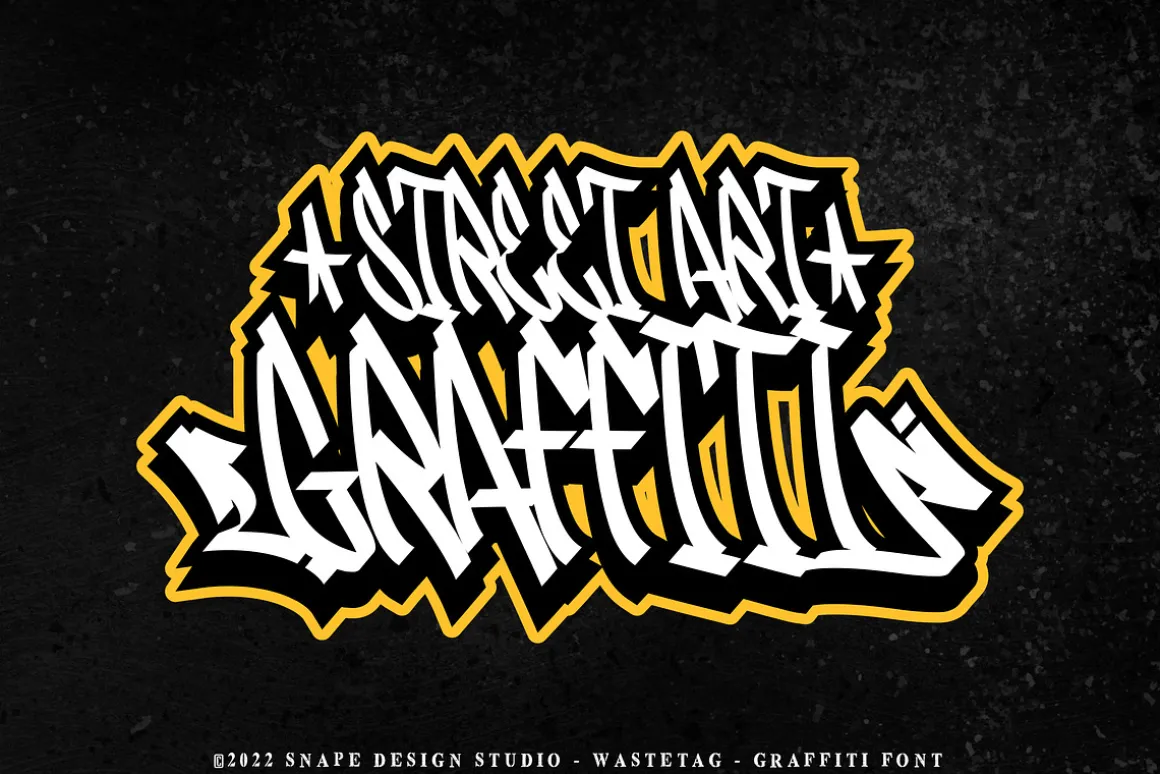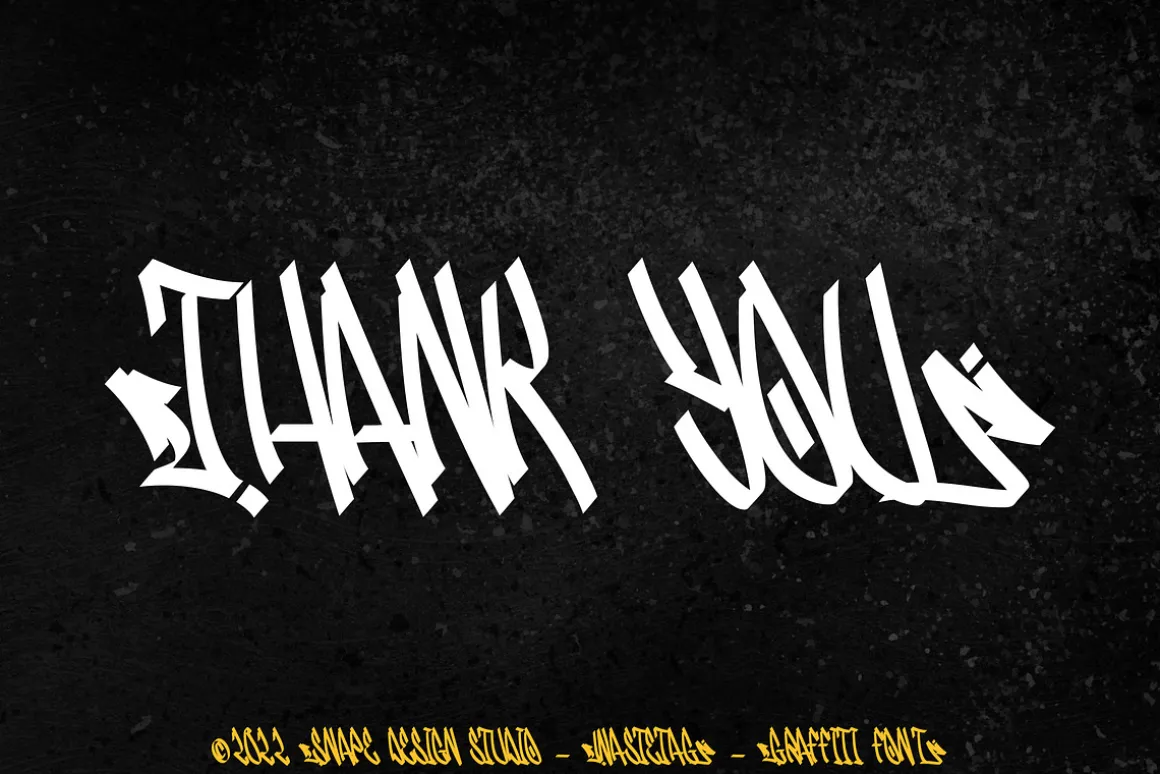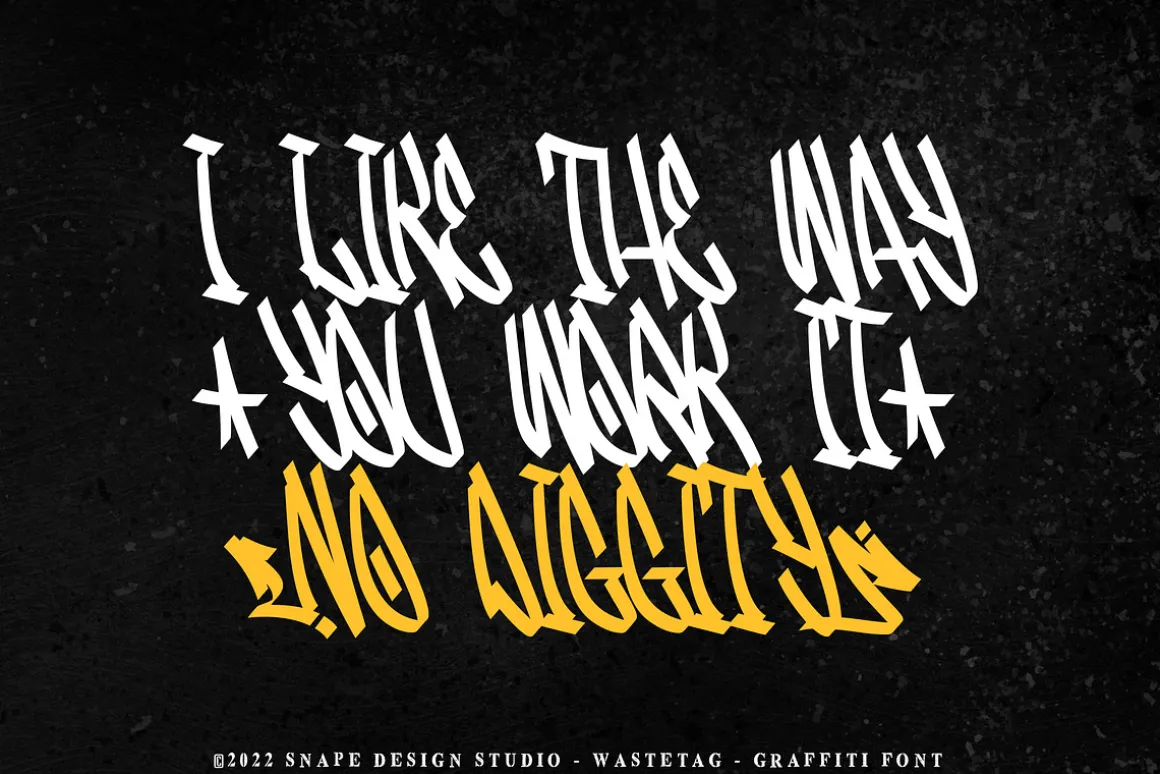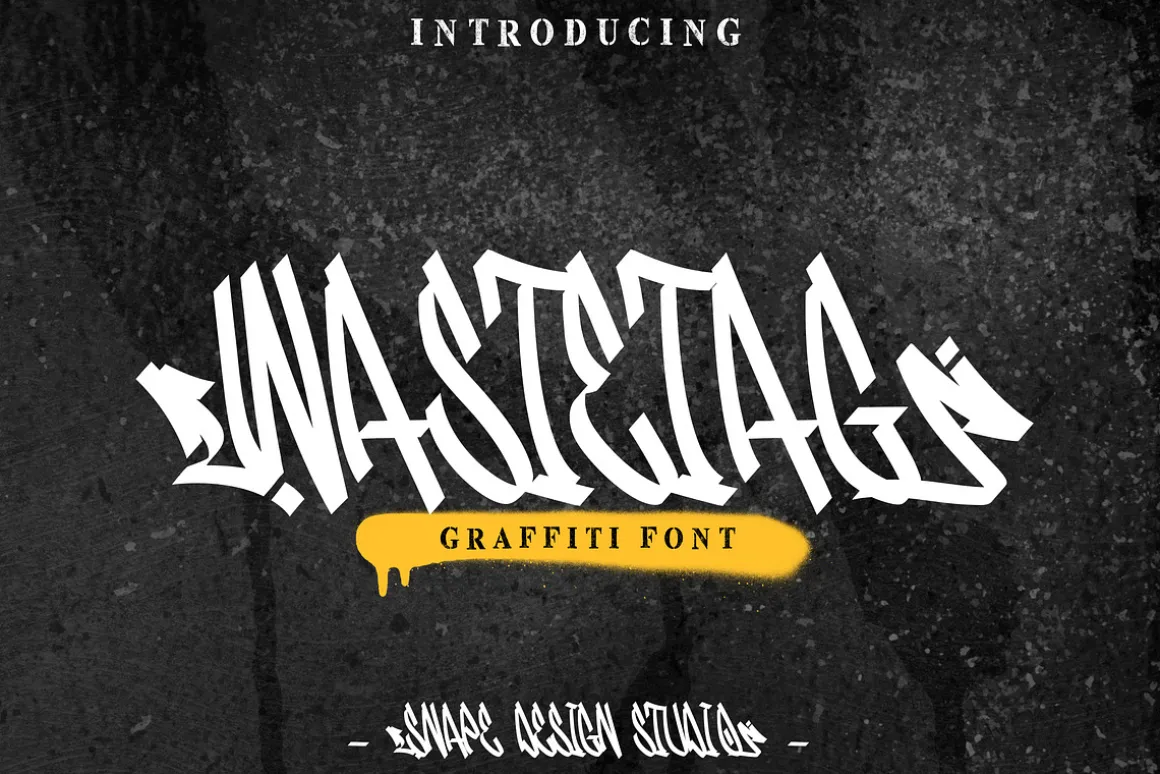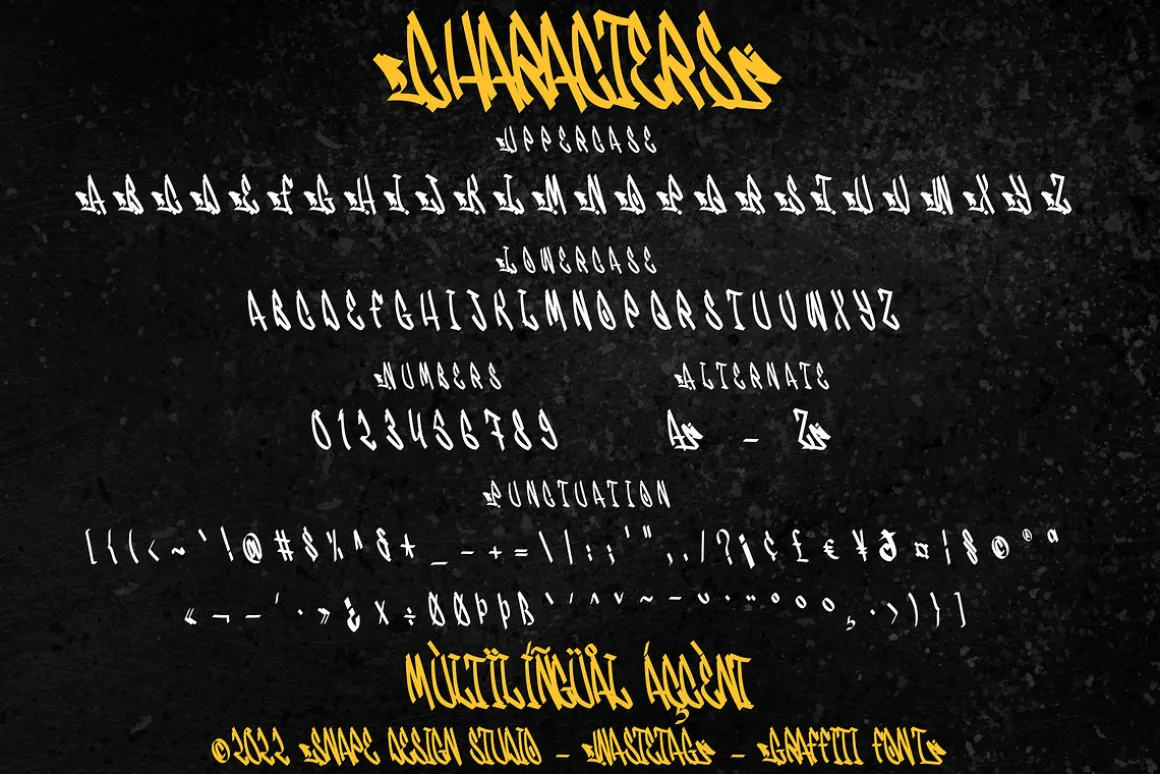
WASTETAG is a display font inspired by typical street art calligraphy style or graffiti tag, suitable for your design related to it.Also suitable for movie, documenter, film, logo, poster, game, book cover, headlines, title and many more projects. Add this font to your creative ideas and notice how it will make them stand out!